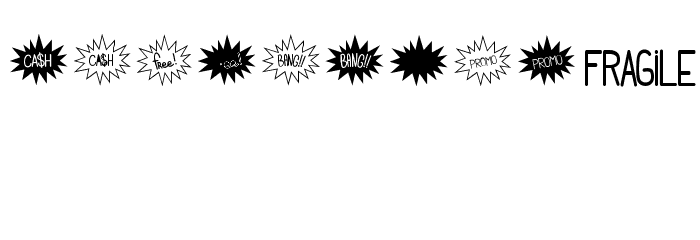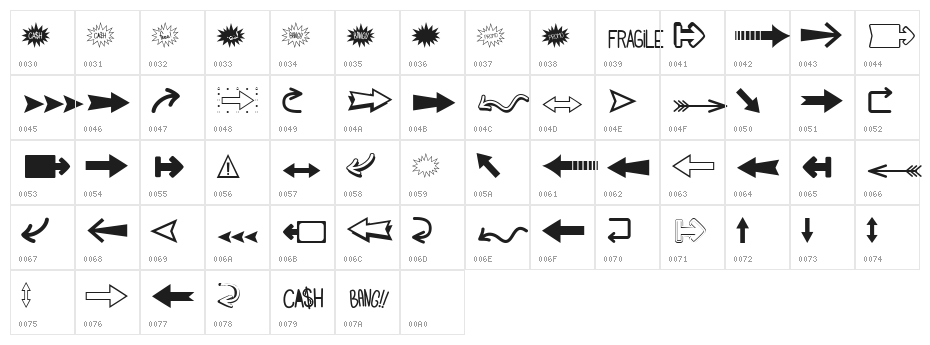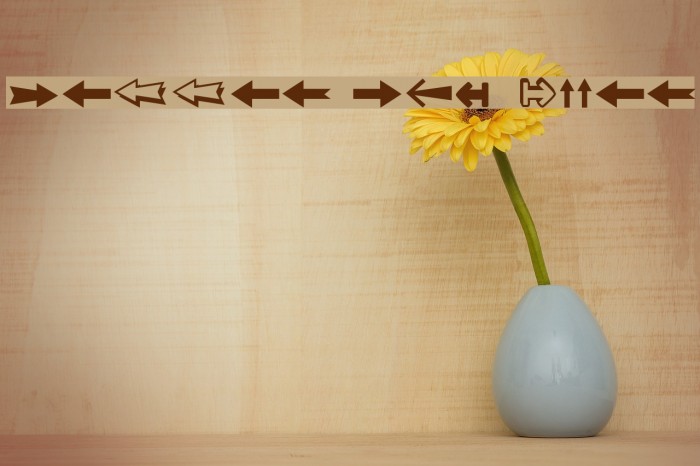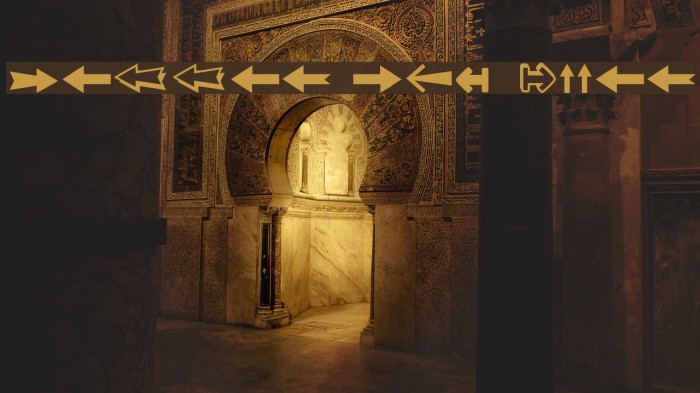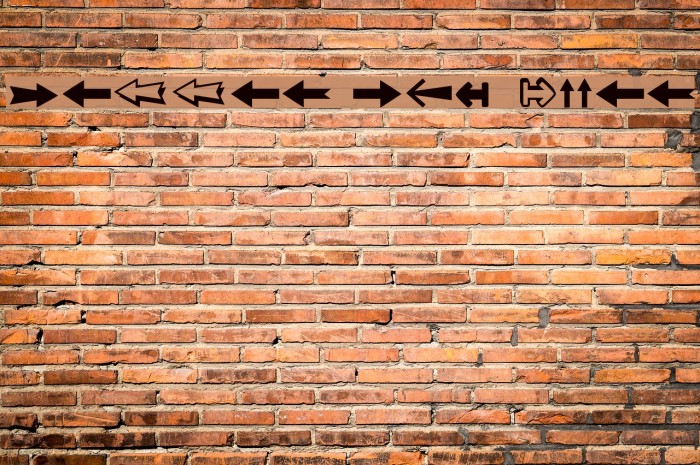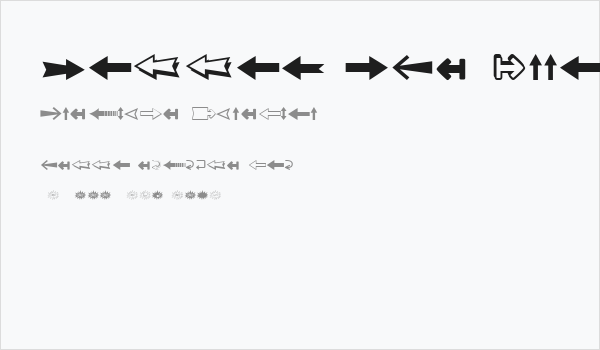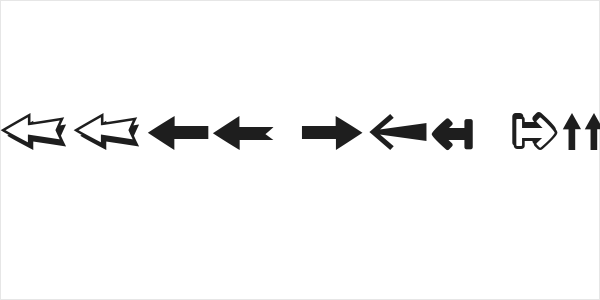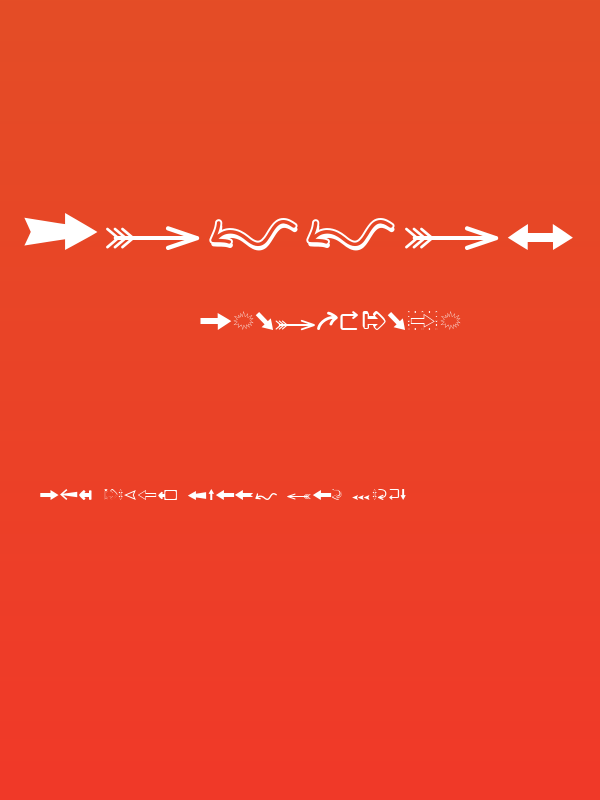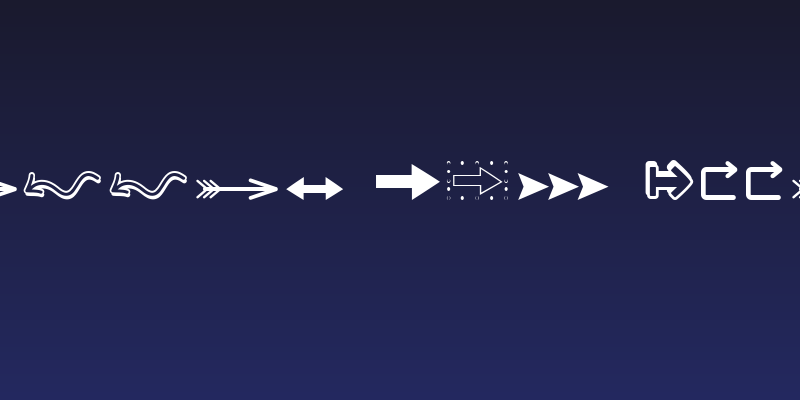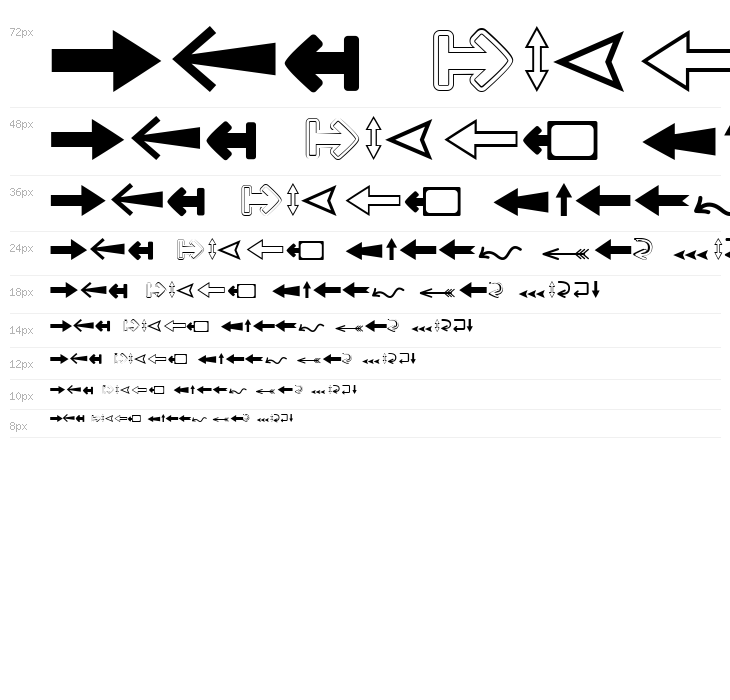
Follow The Arrow Font
Follow The Arrow Description
This collection features a variety of arrow designs, each with unique shapes and styles. The arrows range from simple, straight lines to more complex, decorative forms with curves and angles. Some arrows are filled, while others are outlined, providing a diverse visual experience. The set also includes arrows with additional elements like boxes and warning symbols, adding to their versatility. Additionally, there are comic-style words like 'CASH' and 'BANG!!' in bold, dynamic fonts, reminiscent of pop art or comic book exclamations. The overall style is playful and bold, making it suitable for creative projects that require a dynamic and eye-catching element.
| Overall Style | Playful, Bold, Comic |
| Use Case | Logos, Posters, Illustrations |
| Proposed Projects | Ideal for graphic design projects, comic book illustrations, playful posters, and creative signage. |